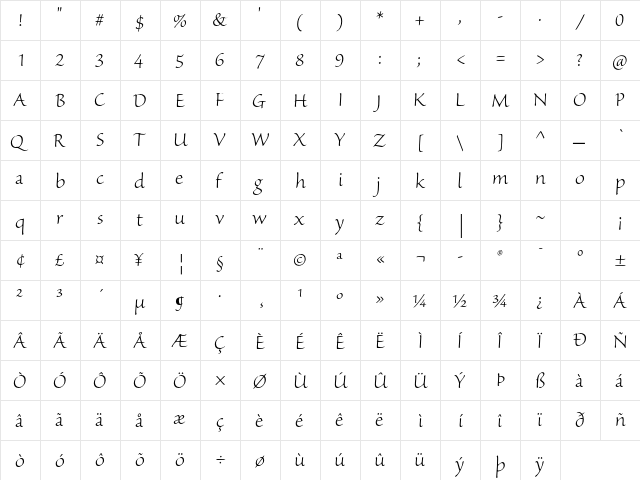
Sanvito Pro Light Subhead
| Designer | Robert Slimbach |
Design Context for Sanvito Pro Typeface
Sanvito Pro takes a measured approach to typography — its balanced proportions and neutral character make it a reliable workhorse for both digital and print work. Its slender proportions lend an understated elegance to any composition.